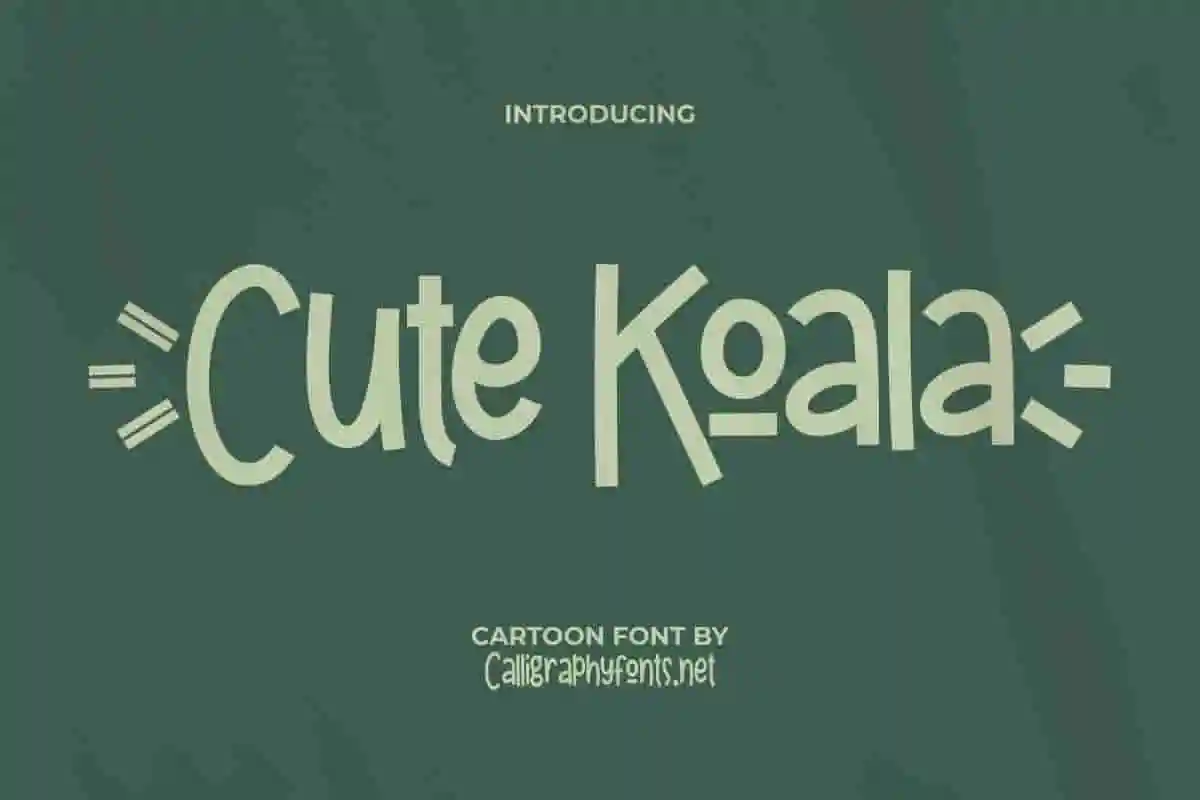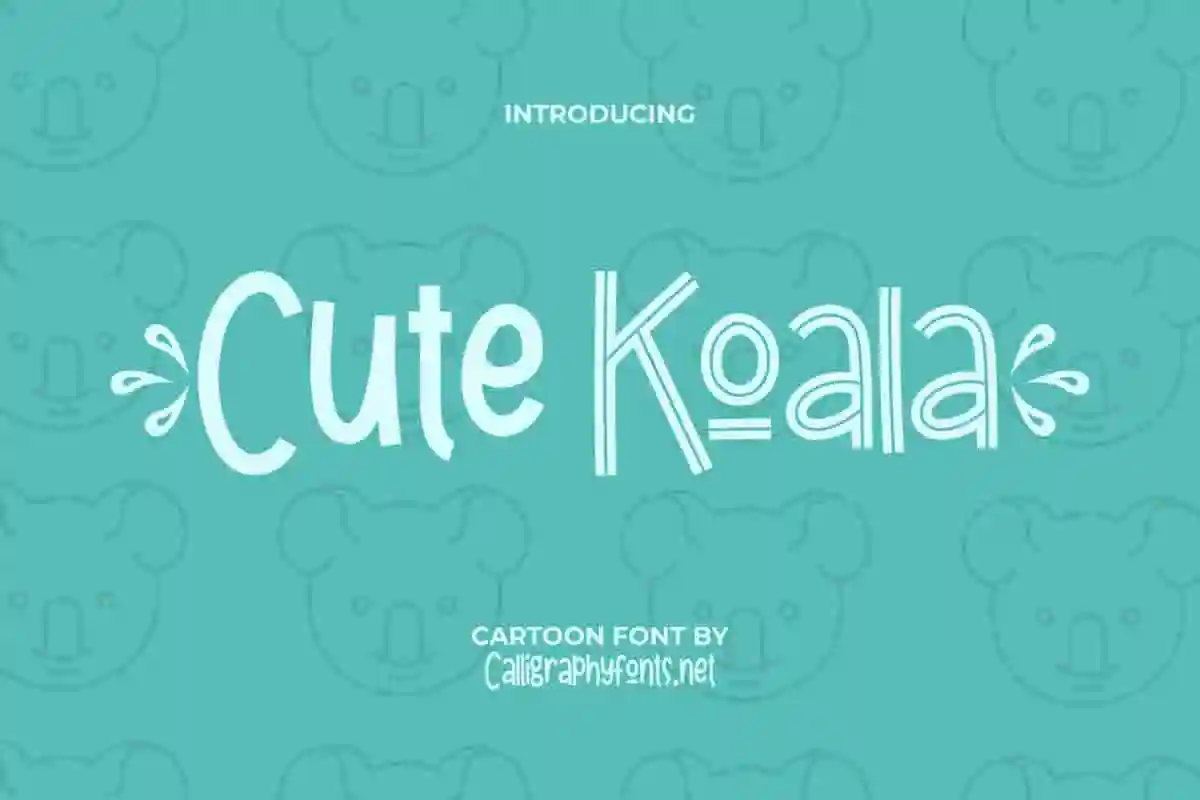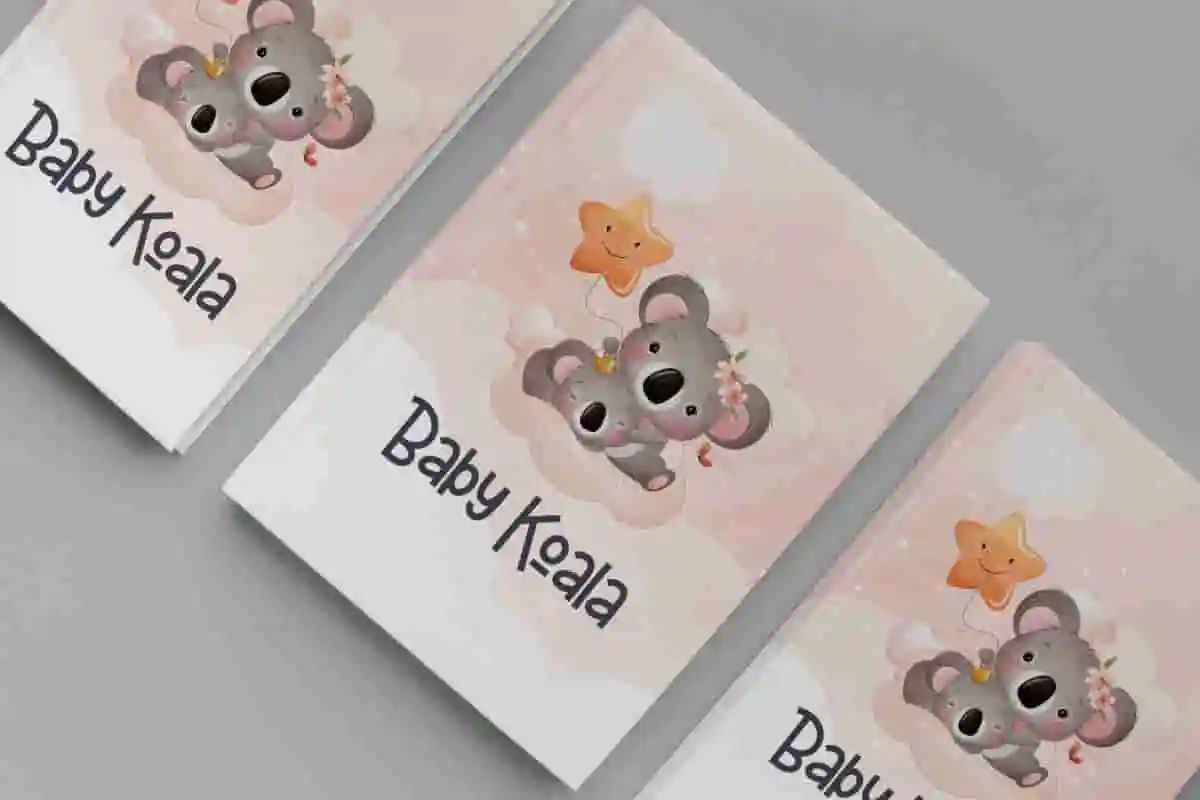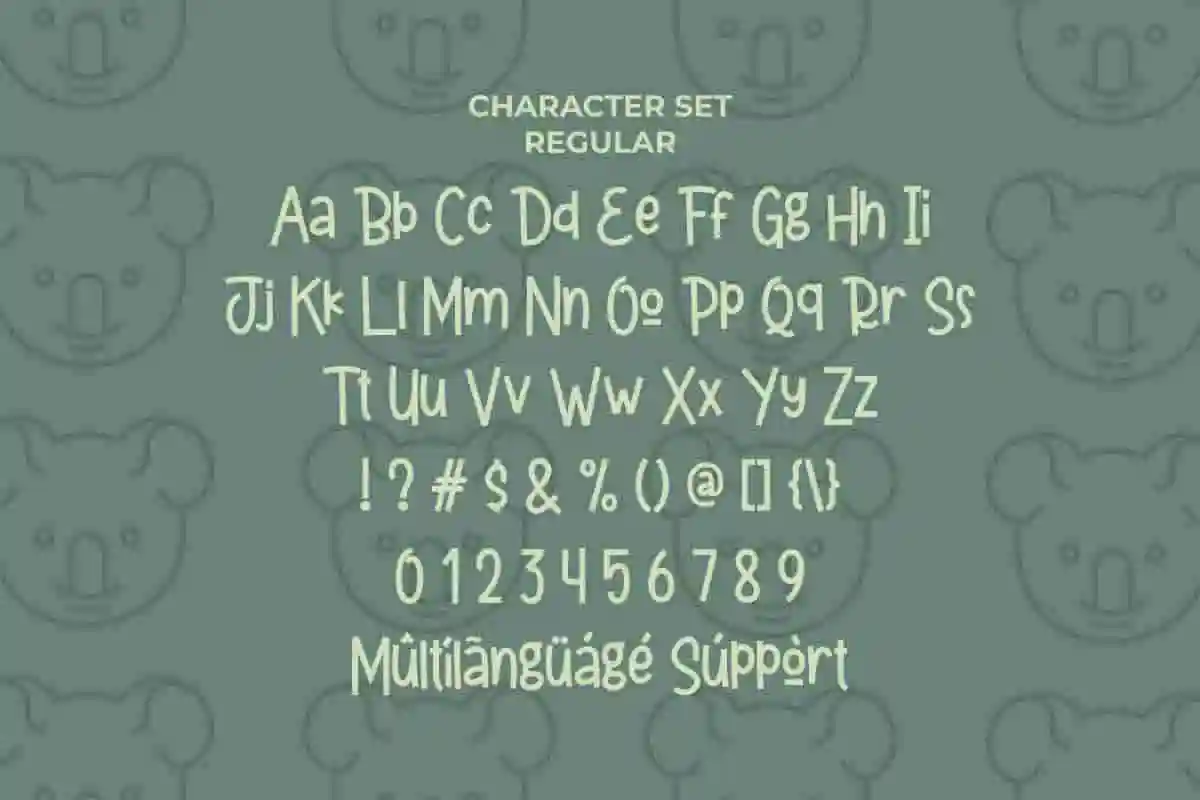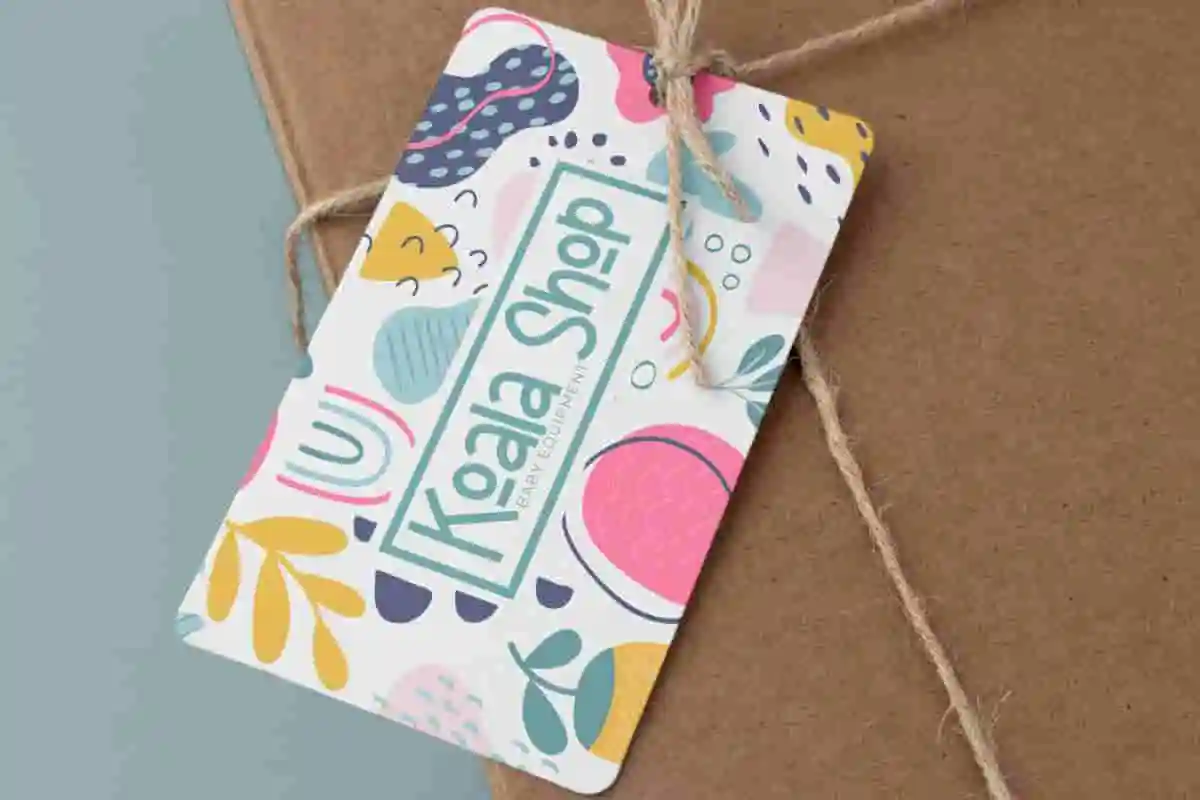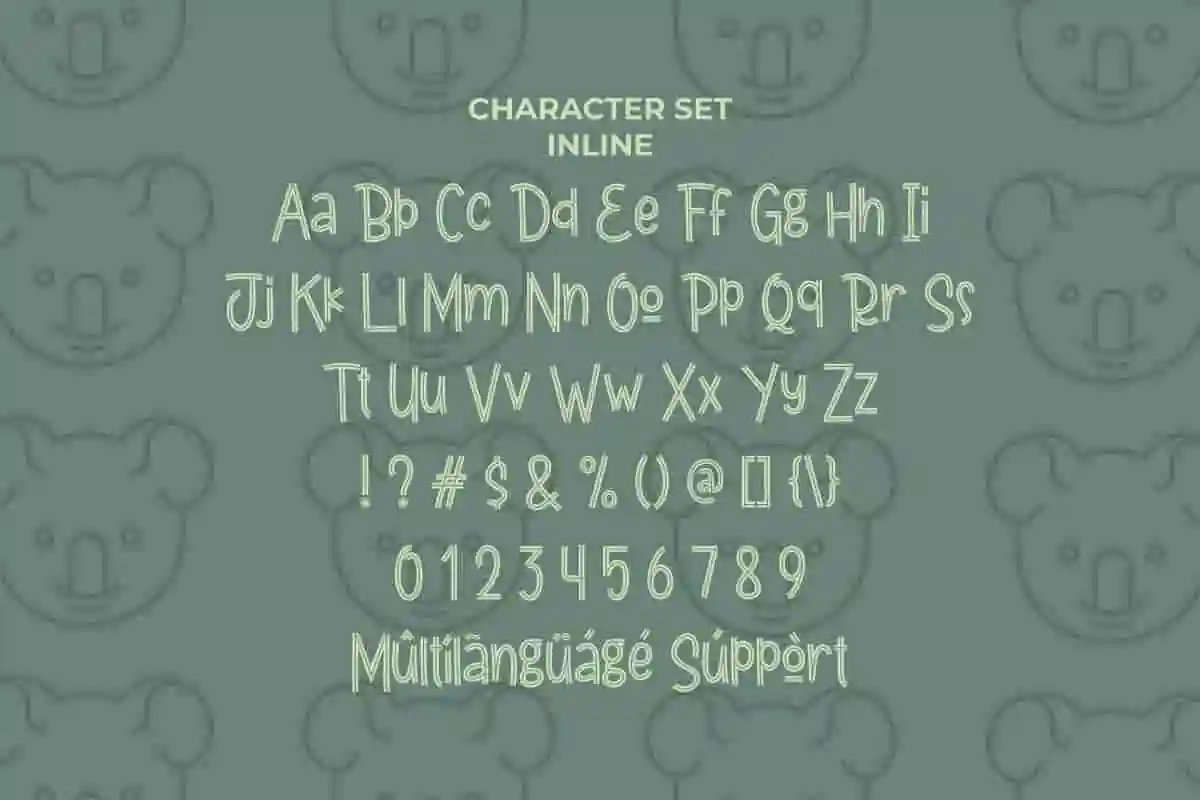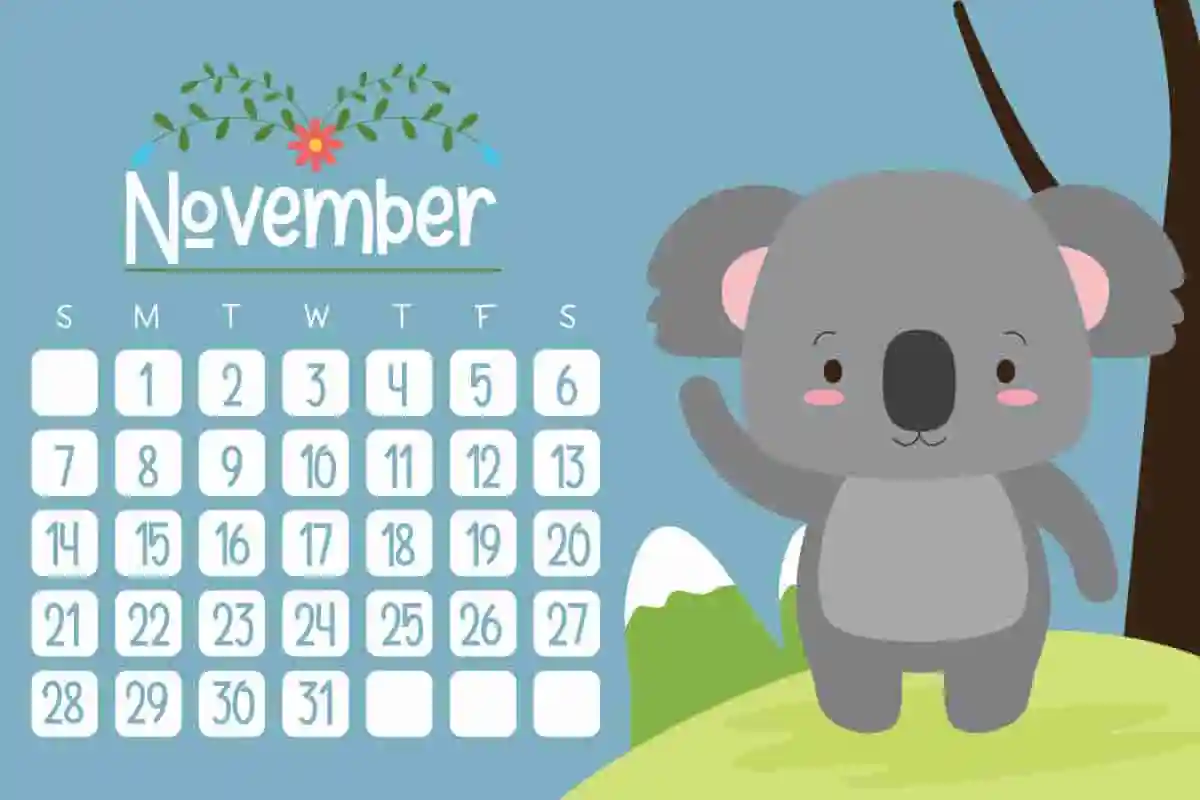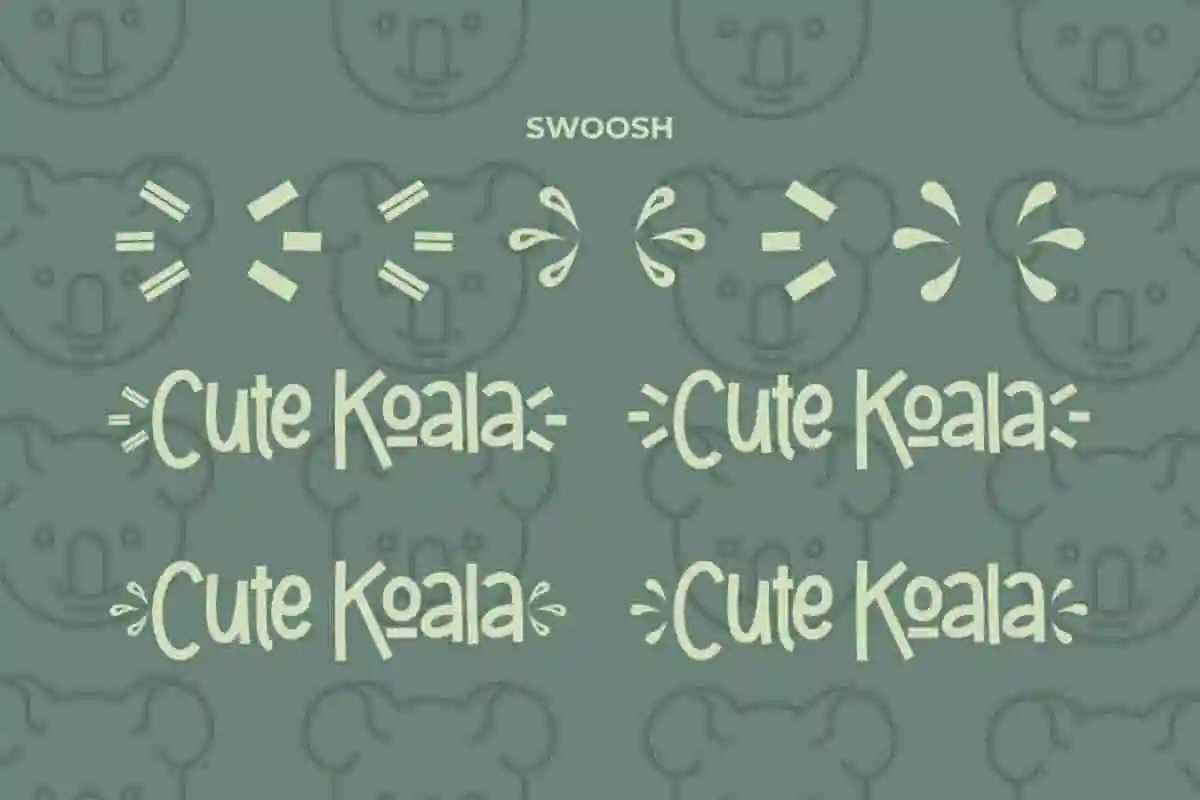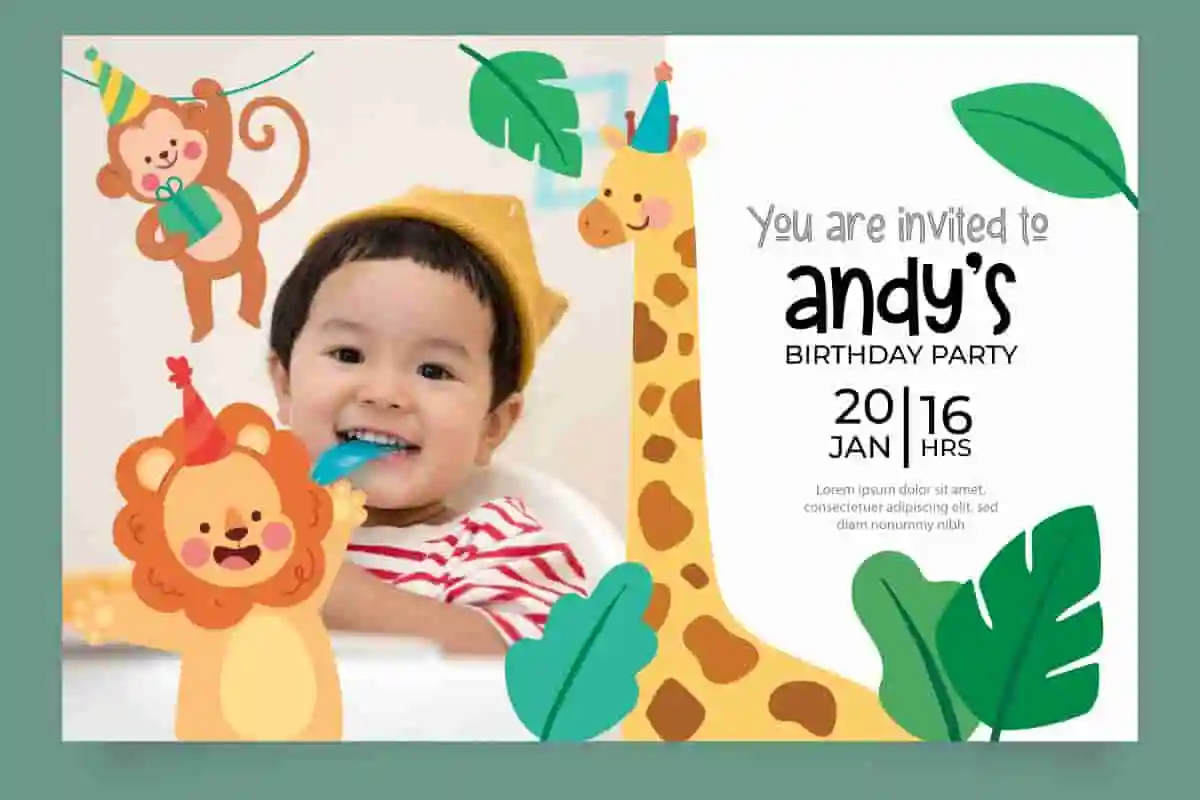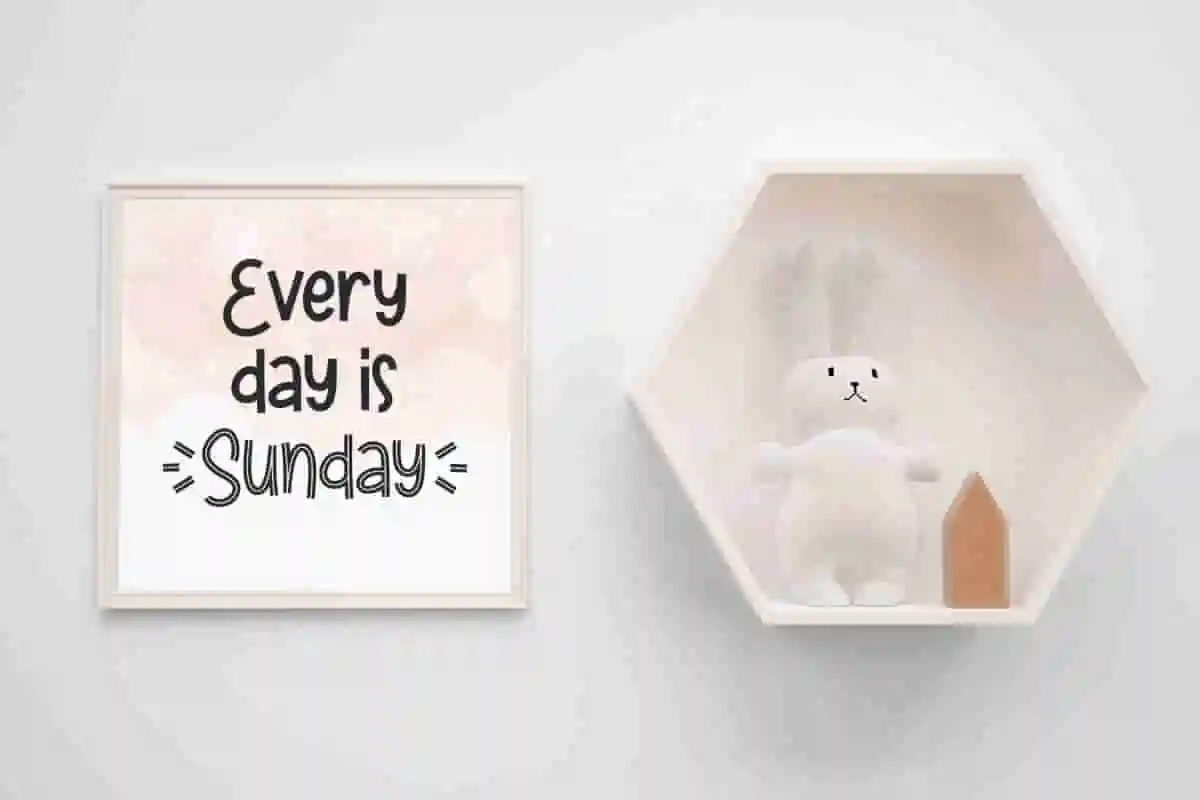
Cute Koala Display Font
Cute Koala Font is a cartoon display font. This handmade font has a simple, unique and stylish cartoon style. Great for logo branding, lettering, products packaging, signage, title etc. Cute Koala Font is a cute cartoon with two style, regular and inline. The font will be awesome for many industries including : fashion, kids, school, writers and many more!
Bring cuteness and joy into your designs with Cute Koala Display Font, a charming and playful typeface that’s perfect for adding a cheerful touch to any project. With its rounded edges, friendly shapes, and delightful personality, this font is designed to make people smile.
Whether you’re creating children’s books, party invitations, greeting cards, or branding for a fun and lighthearted business, Cute Koala Display Font will instantly brighten up your work. Its bold yet friendly style makes it easy to read while maintaining a whimsical charm.